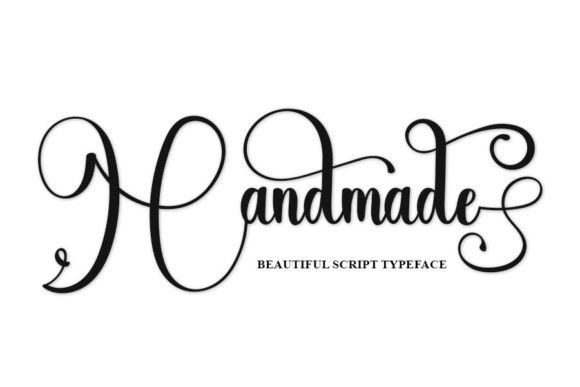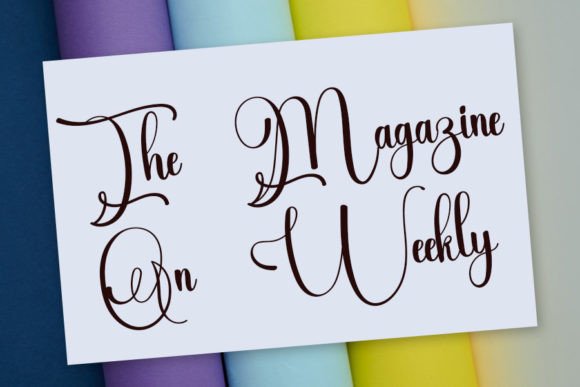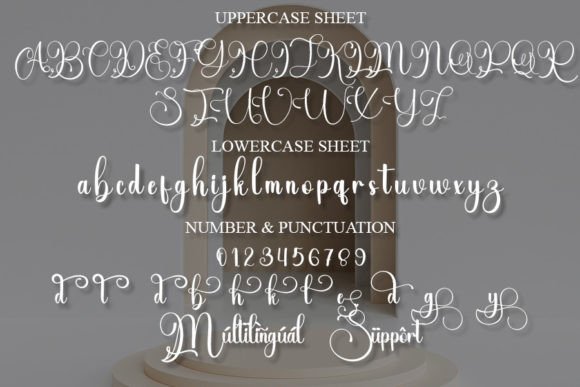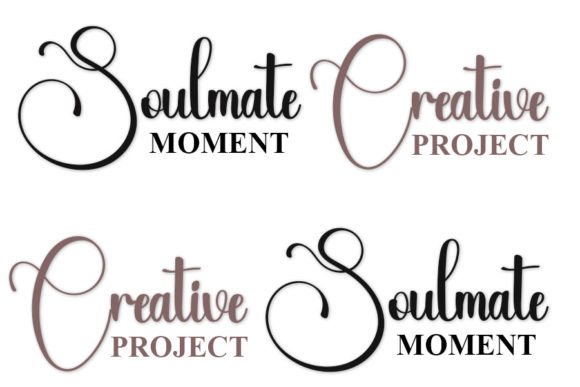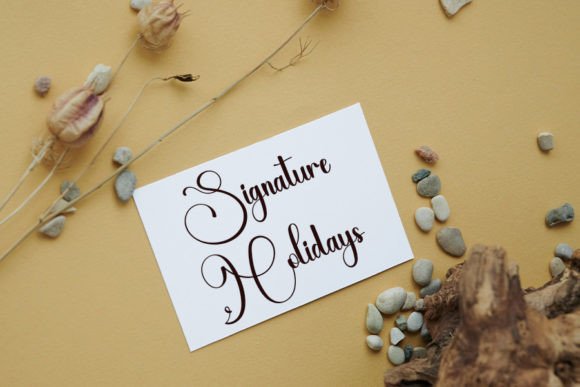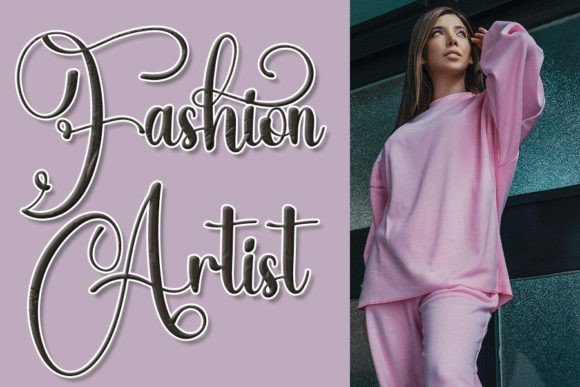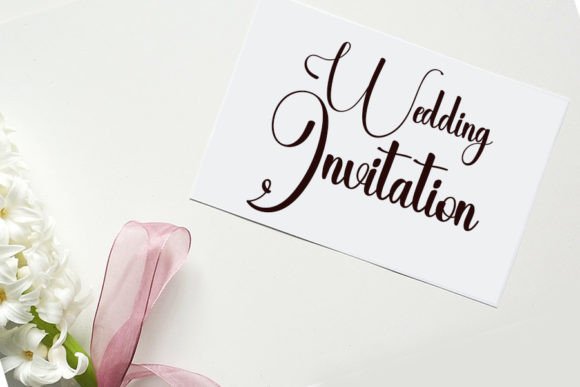
Introducing a new wave of creativity, “Handmade” is a font that seamlessly merges elegance and charm in the world of handwritten script fonts. This unique typeface captivates the essence of handcrafted beauty, making it a versatile choice for a myriad of design projects. From sophisticated invitations to captivating branding, posters, and beyond, “Handmade” effortlessly elevates any composition with its graceful appearance.
The font’s distinguishing feature lies in its exquisite handwritten style, which brings a personal touch to every character. Each letter is meticulously crafted, exuding a sense of authenticity and warmth. “Handmade” stands out with its flowing and graceful strokes, making it a perfect choice for projects that require a touch of sophistication and creativity.
One of the remarkable aspects of “Handmade” is its PUA encoding, a feature that opens the door to a world of customization. With easy access to glyphs and swashes, designers can unleash their creativity, adding unique elements and flourishes to their creations. This not only enhances the visual appeal of the font but also allows for a more personalized and distinctive outcome.
This font’s versatility is evident in its ability to complement a wide array of design applications. Whether you’re working on wedding invitations, branding materials, posters, or social media graphics, “Handmade” effortlessly adapts to various design needs. Its timeless appeal makes it suitable for both classic and contemporary projects, ensuring that it remains a valuable asset in your font library.
Picture “Handmade” adorning an invitation suite, bringing an air of sophistication to a wedding announcement. Envision it gracing the header of a brand’s marketing collateral, adding a touch of authenticity and creativity. Its smooth and flowing characters make it equally suitable for poster designs, capturing attention with every stroke.
In essence, “Handmade” is more than just a font; it is a design tool that transforms ordinary projects into extraordinary works of art. It embodies the spirit of handcrafted elegance, making a lasting impression on any creative endeavor. Whether you’re a seasoned designer or a novice experimenting with fonts, “Handmade” is poised to become a staple in your toolkit, breathing life and character into your designs.